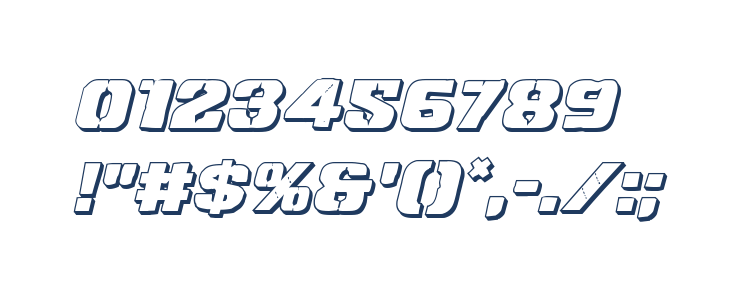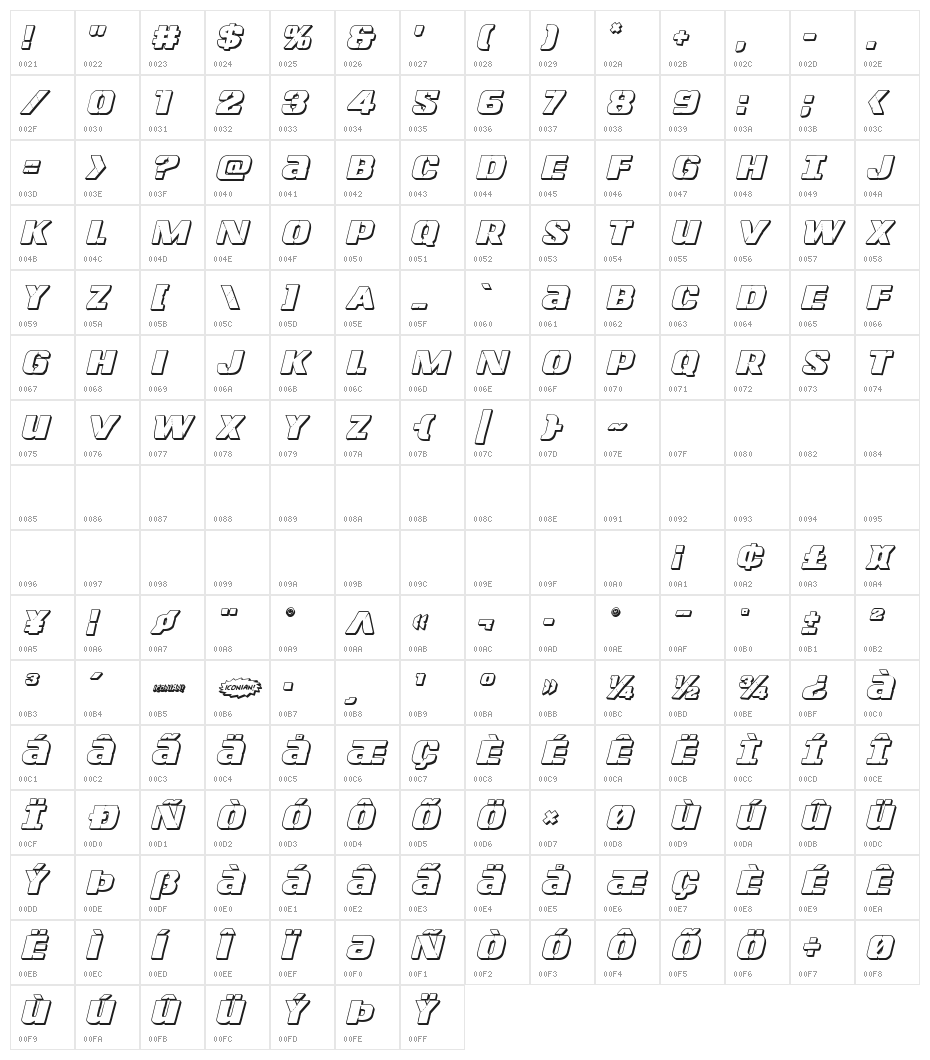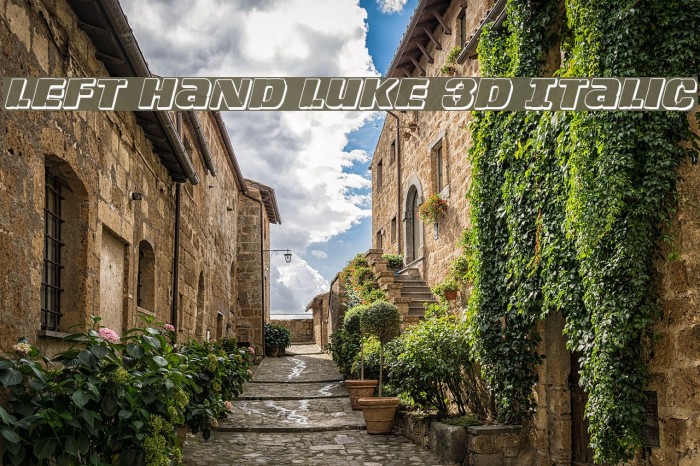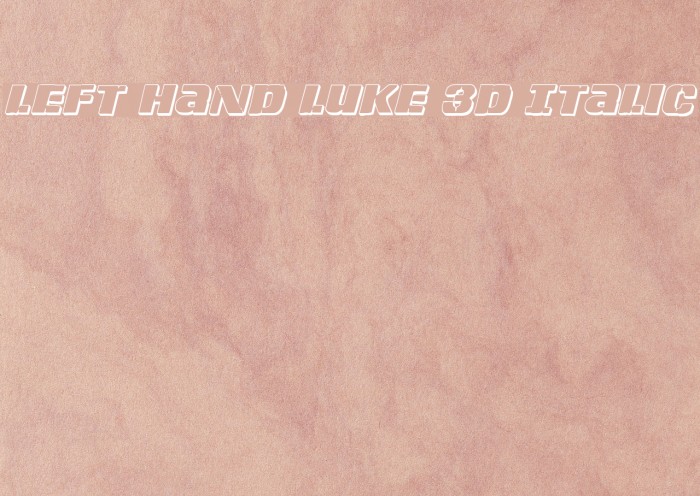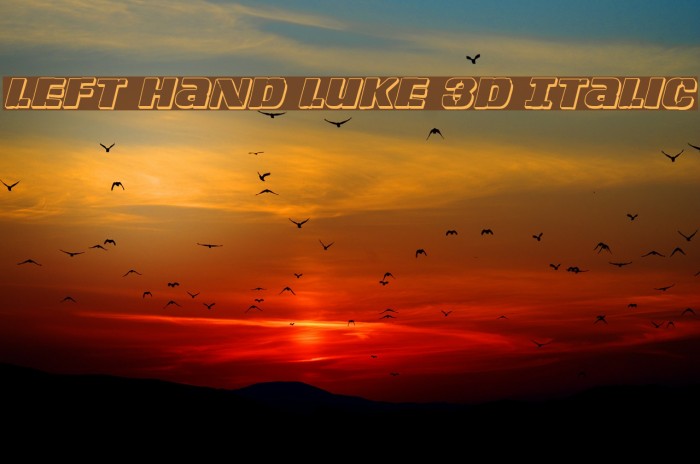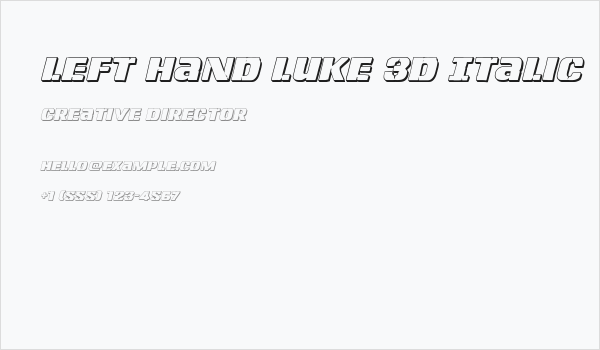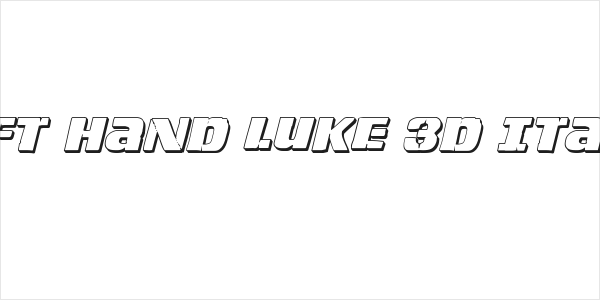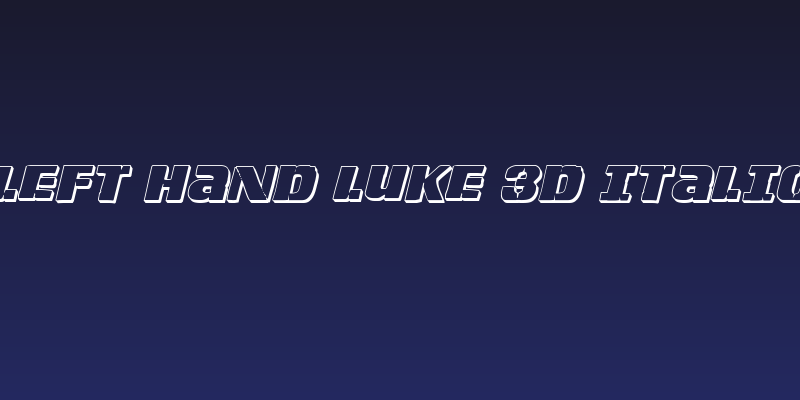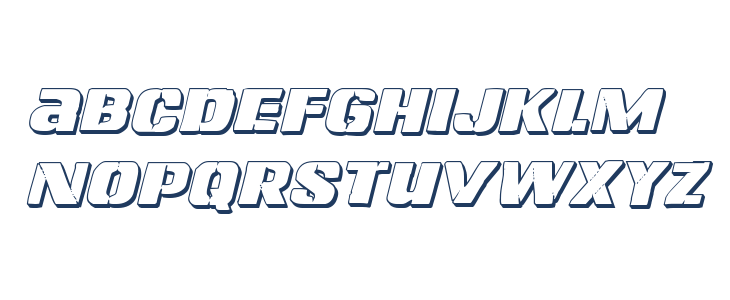
Left Hand Luke 3D Italic Font
Left Hand Luke 3D Italic Description
This font features a bold, three-dimensional design with a distinct italic slant, giving it a dynamic and modern appearance. The characters are outlined, creating a shadow effect that enhances the 3D illusion. Each letter and number is crafted with precision, maintaining a consistent thickness throughout, which contributes to its bold and impactful look. The font's style is both playful and assertive, making it suitable for projects that require a strong visual presence. The spacing between characters is normal, ensuring readability while maintaining its decorative appeal. This font is versatile, suitable for a variety of creative applications.
Proposed ProjectsIdeal for posters, headlines, logos, and any design requiring a bold, eye-catching typeface.